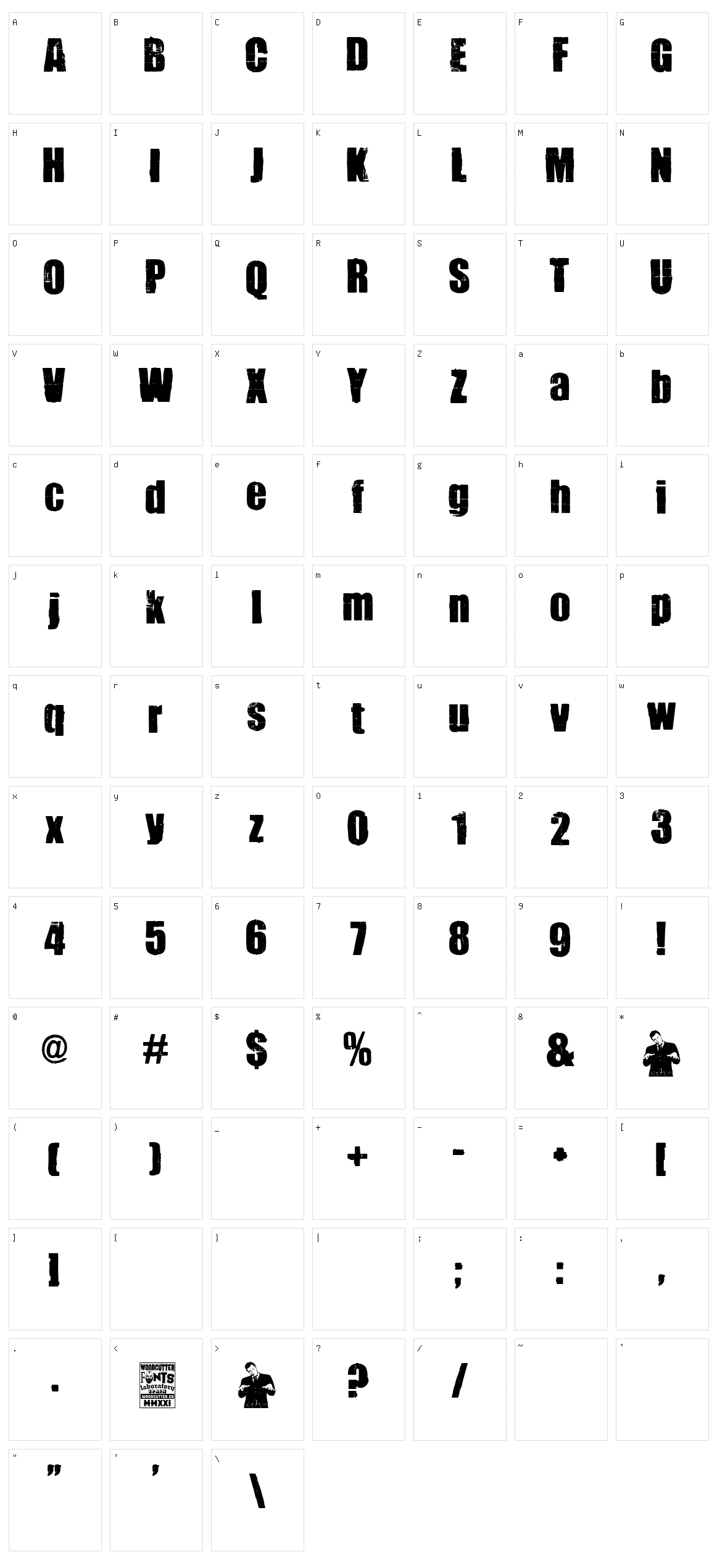
The free font The Night Of The Hunter is carefully designed by Woodcutter, showcasing a thoughtful balance of creativity and usability and falls under the Eroded font style. When you download the ZIP file, it contains only 114.52 KB of font files, making it lightweight and quick to download. Please review the license details below to understand permitted usage and distribution rights. If license information is not available, we recommend using this font for personal projects only or contacting the author directly for commercial usage permissions.